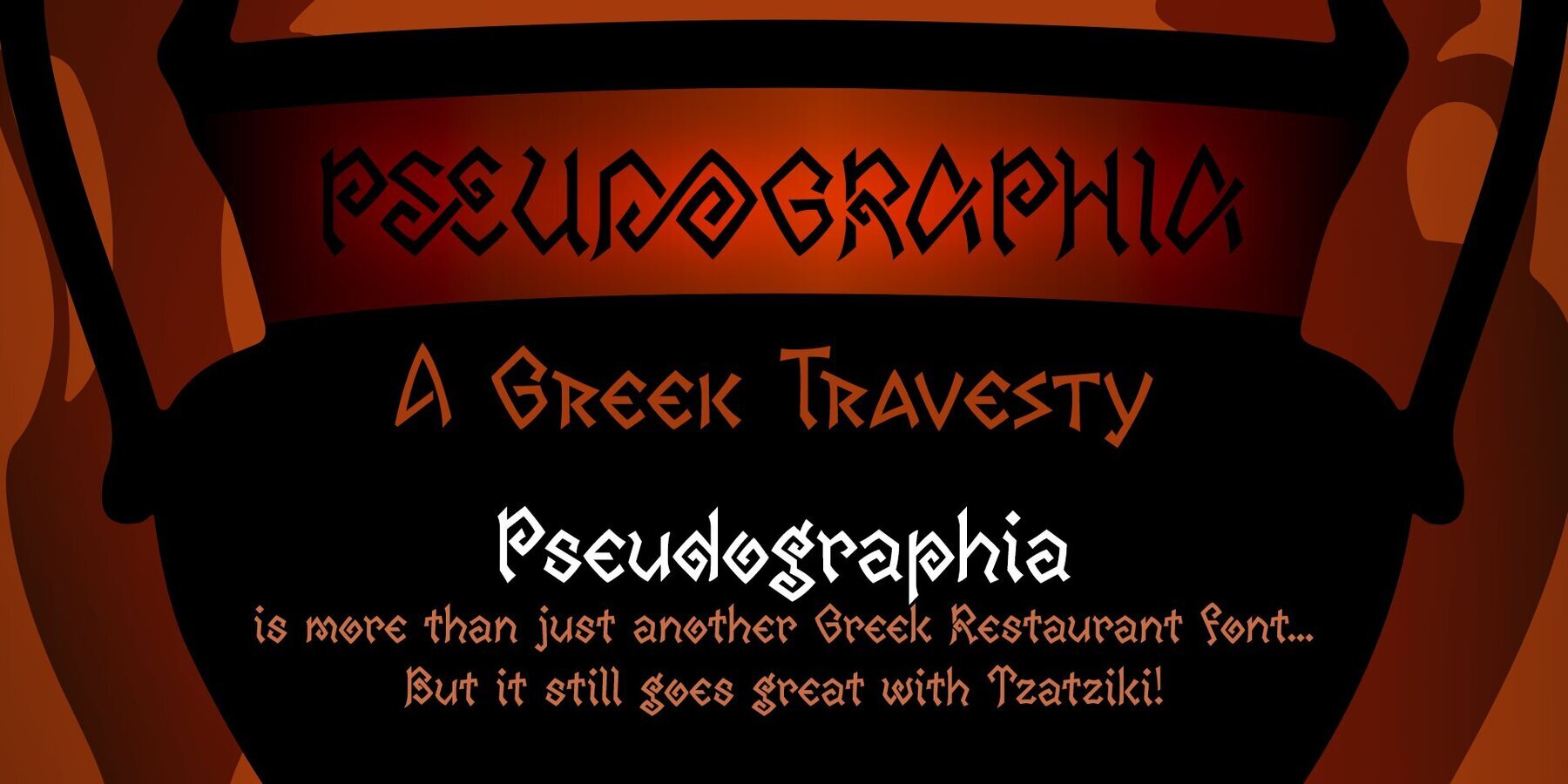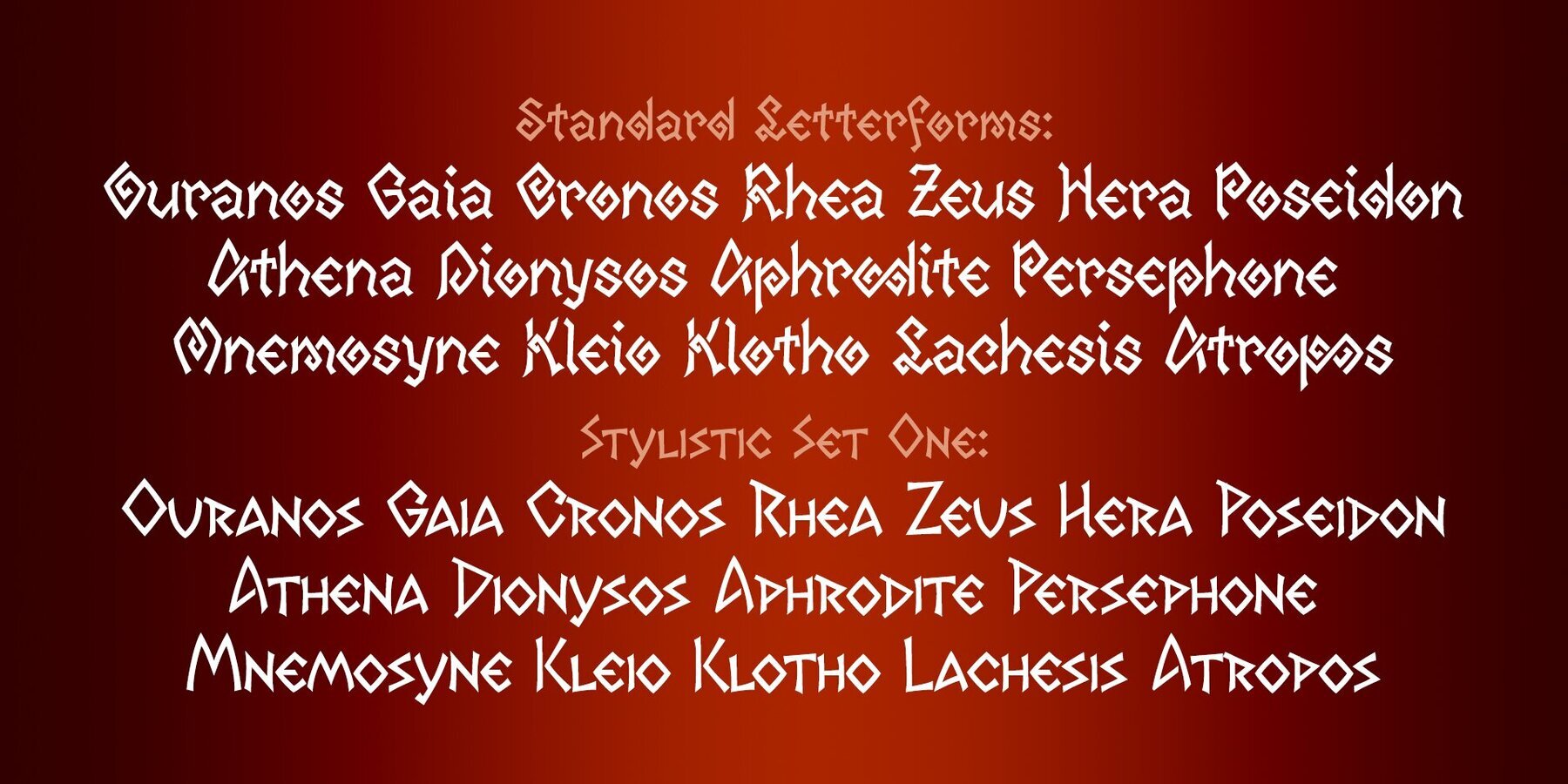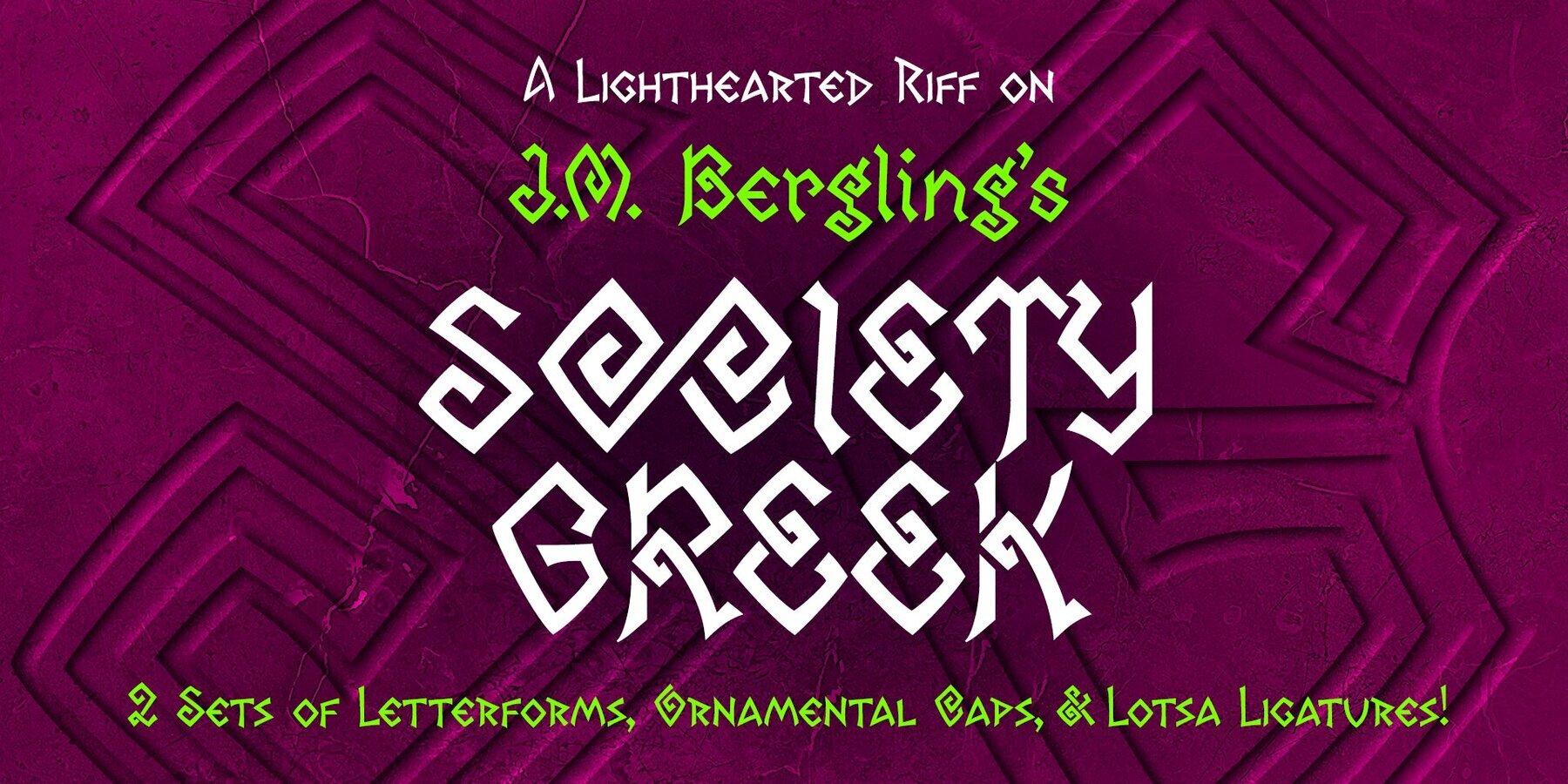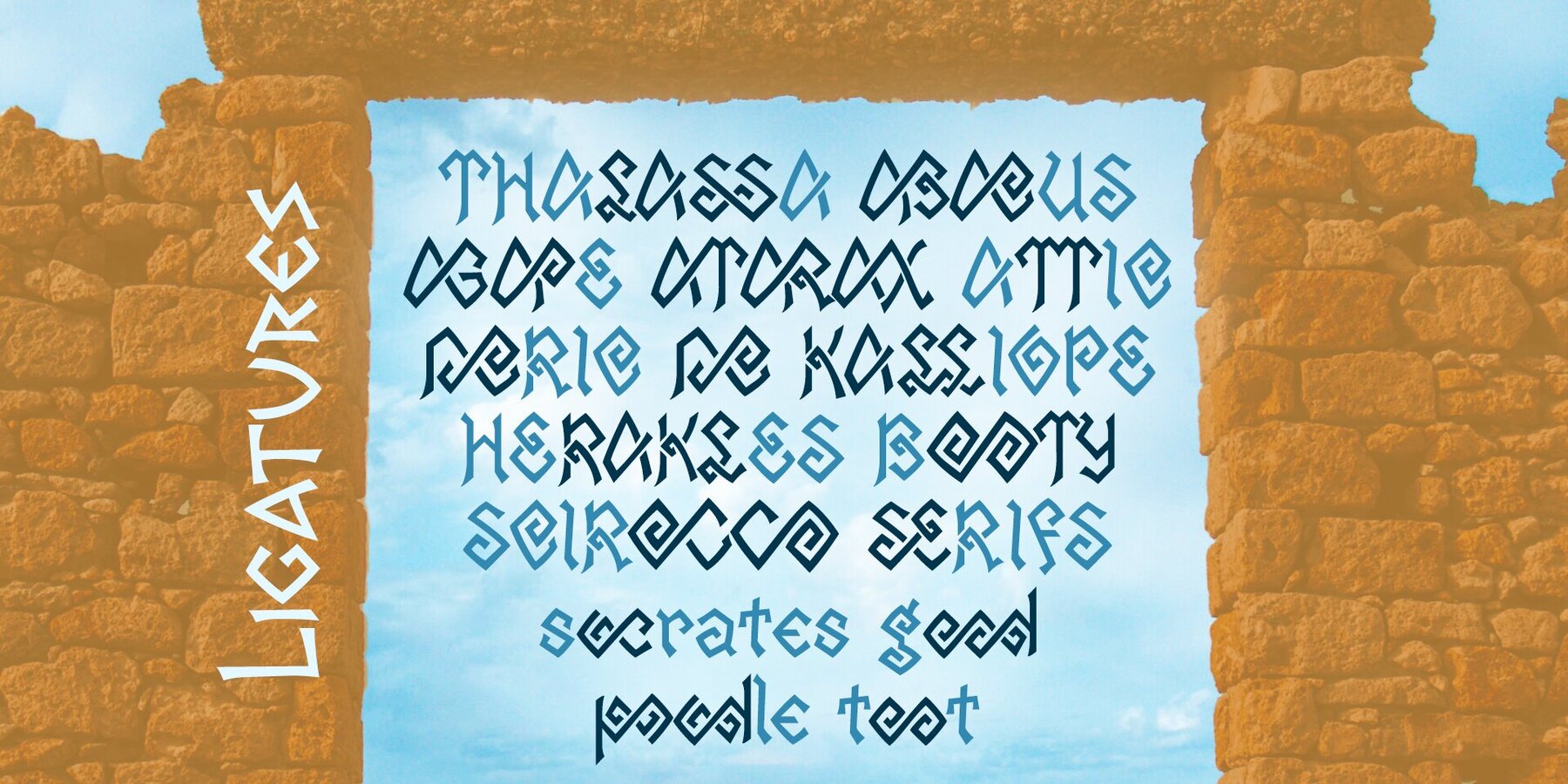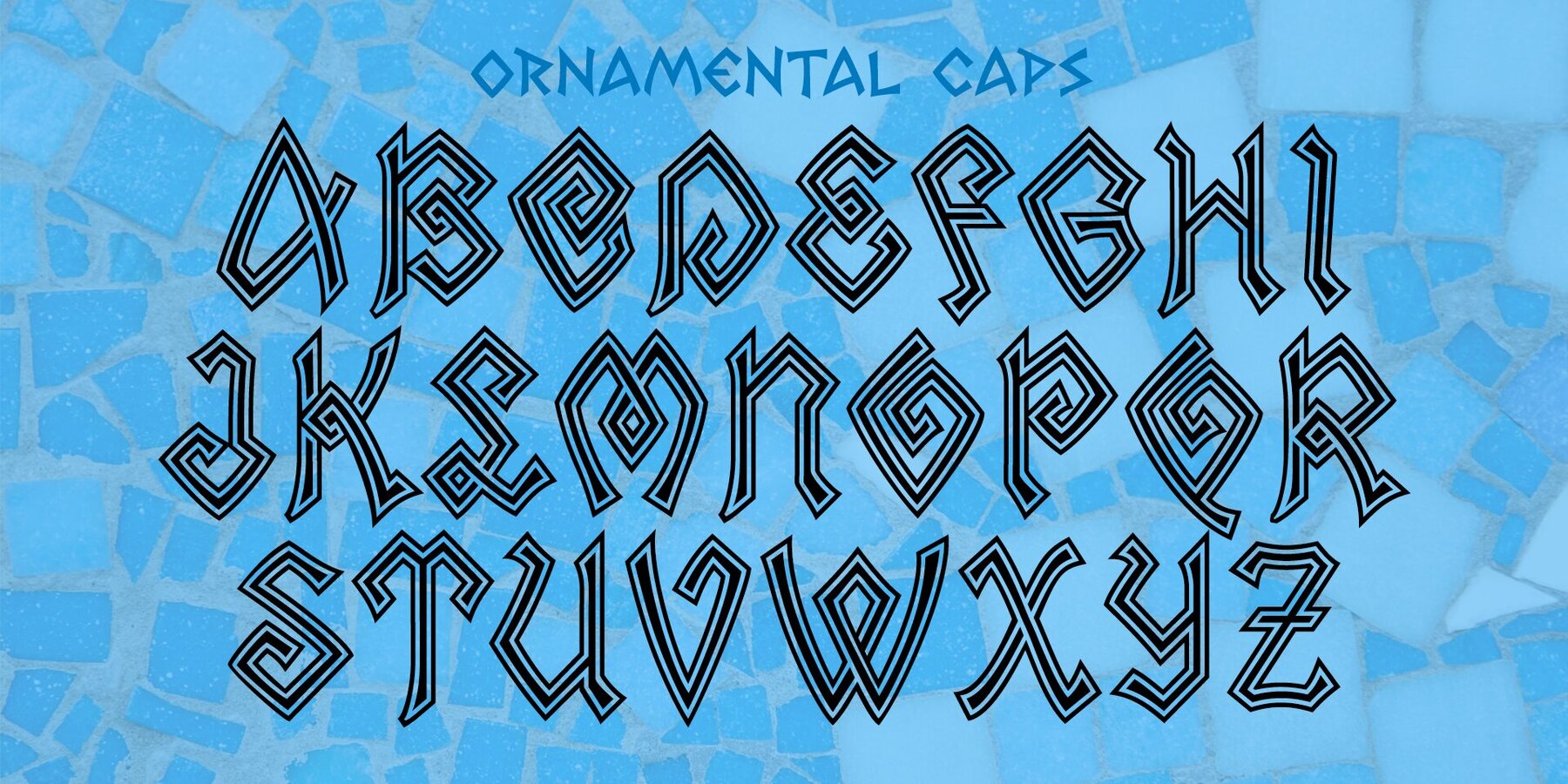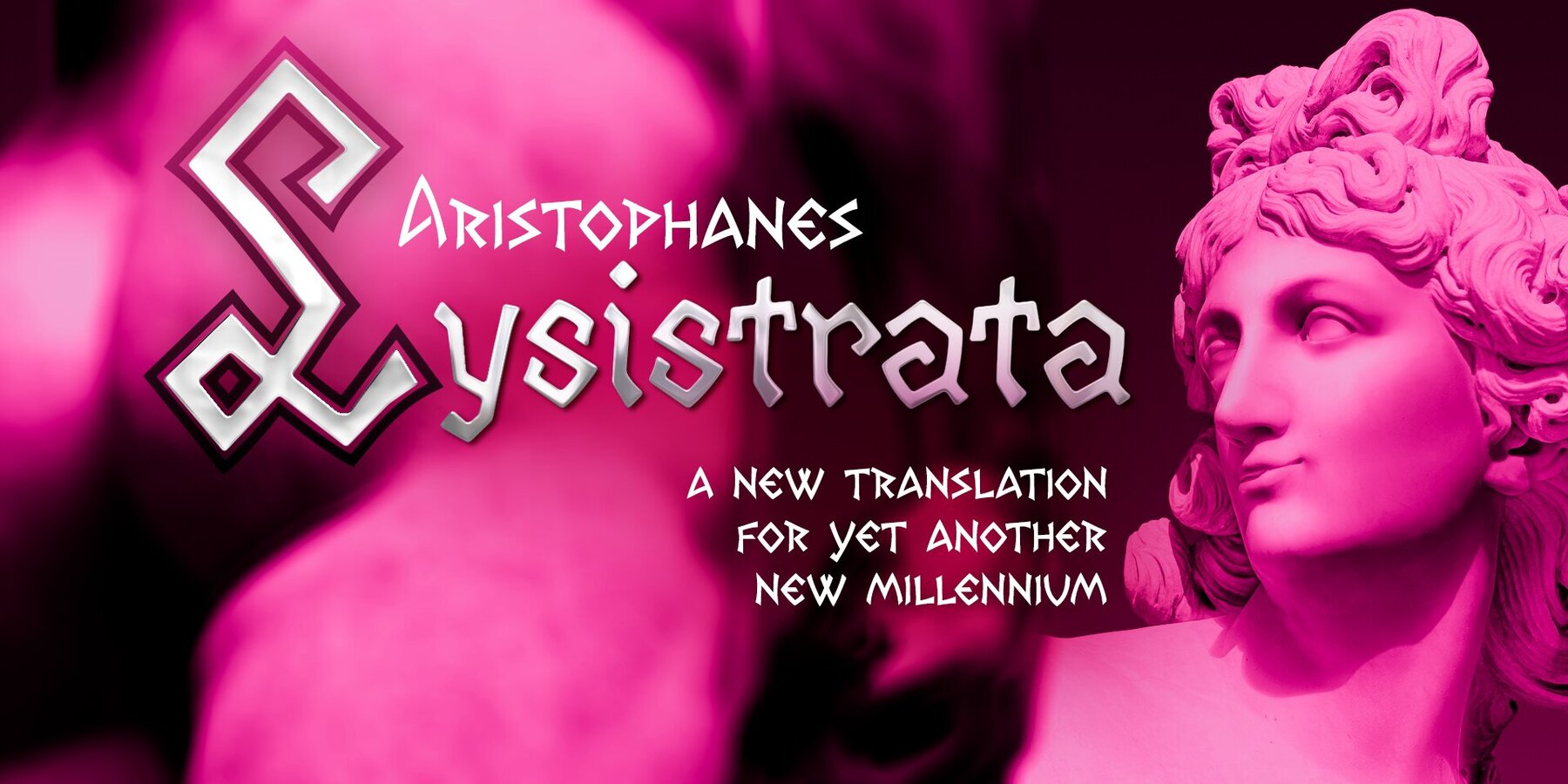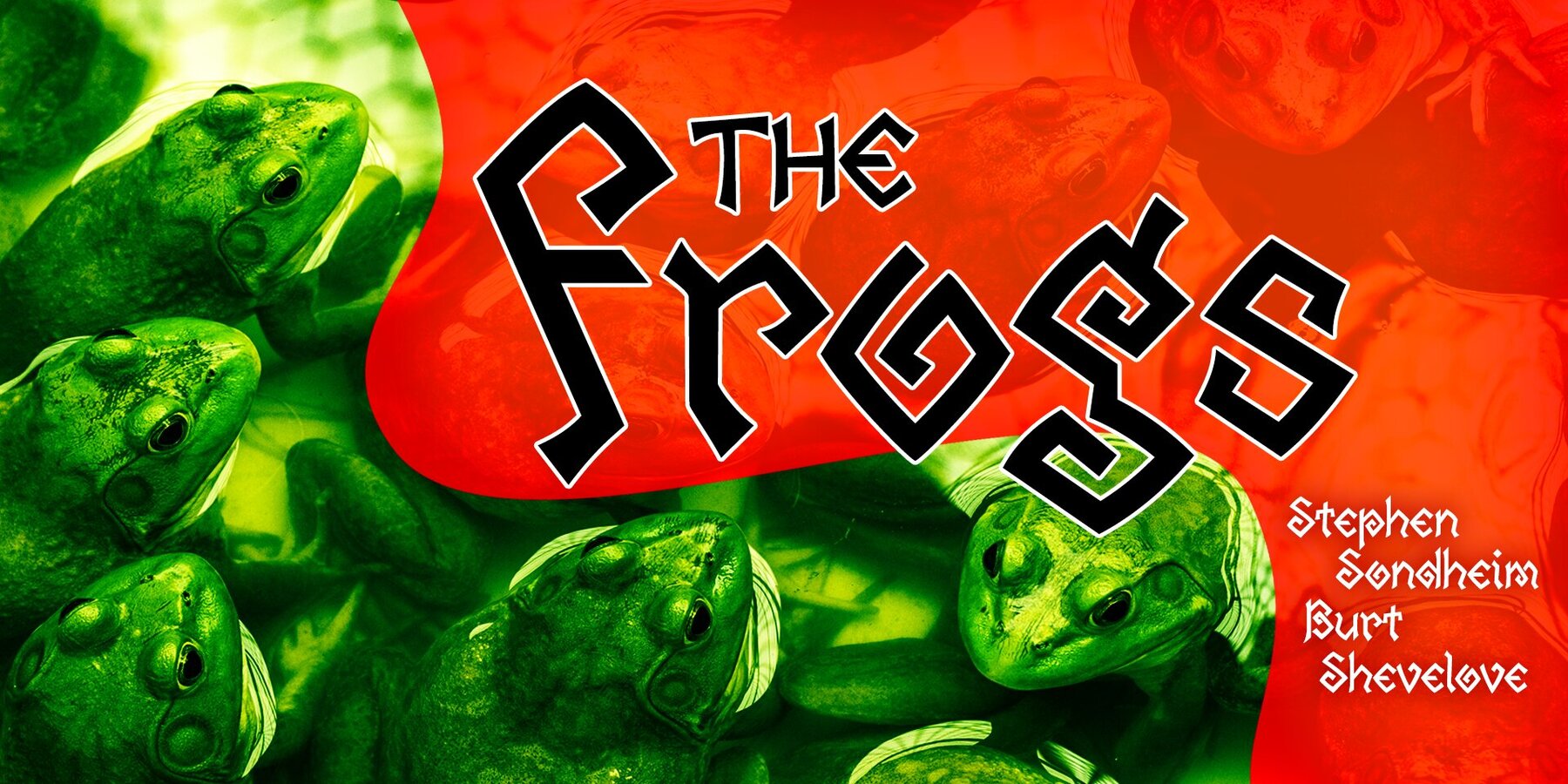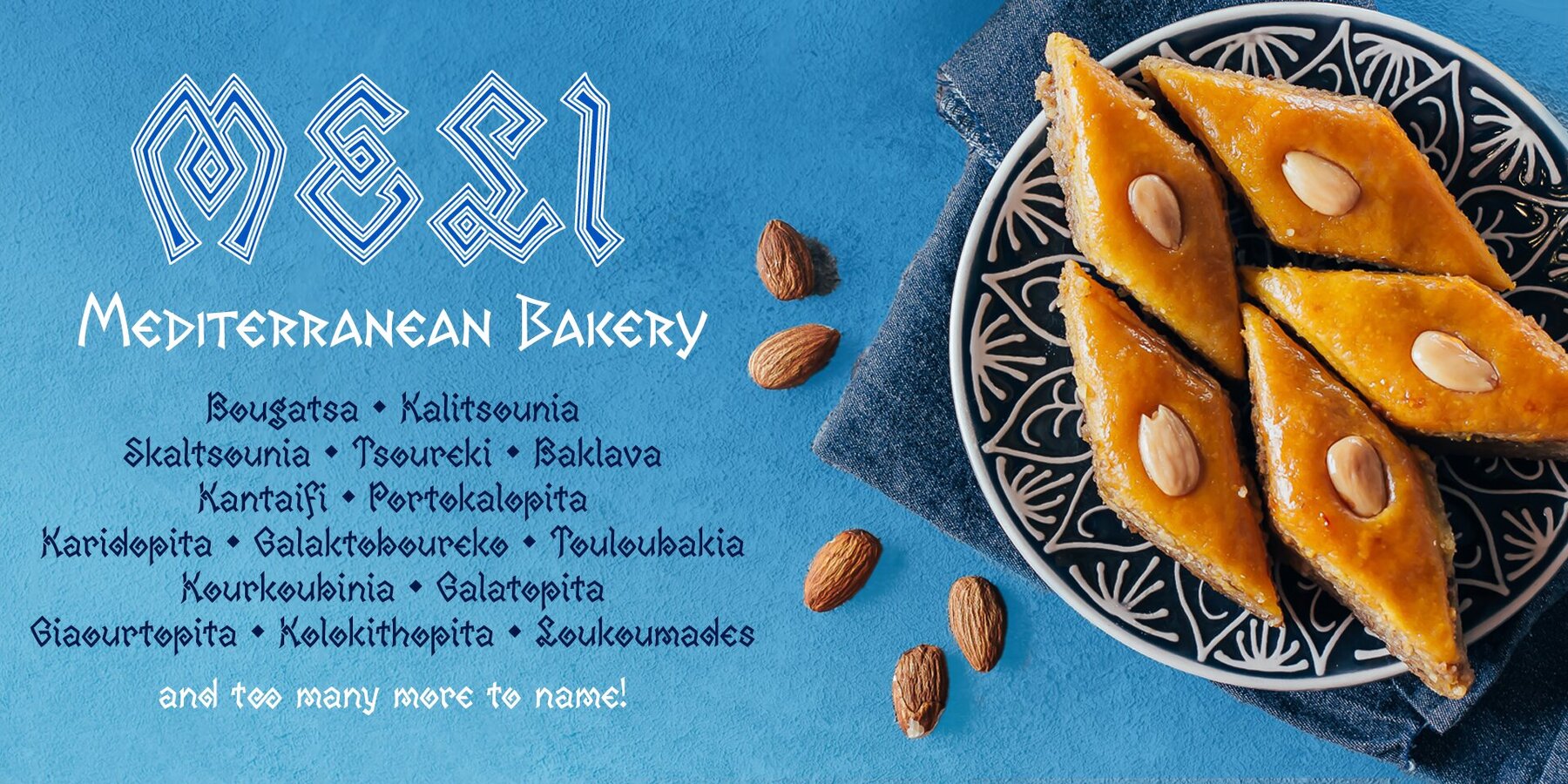
Pseudographia Font
Pseudographia Regular
It’s three “Greek” styles in one font! Pseudographia is a lighthearted, loving pastiche of “Greek-Style” type inspired by J.M. Bergling’s 1917 “Society Greek” lettering. Happily living in the world of kitschy cross-cultural fonts of the kind found on restaurant awnings around the US, Pseudos is blithely unconcerned with legibility. Instead, it embraces its own benign exoticism and revels in its own chicanery!
Pseudographia’s standard letterforms are angular Roman forms. Its Stylistic Set One contains a simplified Small Caps version of the kind commonly seen at Mediterranean eateries. Its Stylistic Set Two contains a full set of outlined Ornamental caps. Opa! Part of The Ampersand Forest's Sondheim Series, honoring The Frogs!